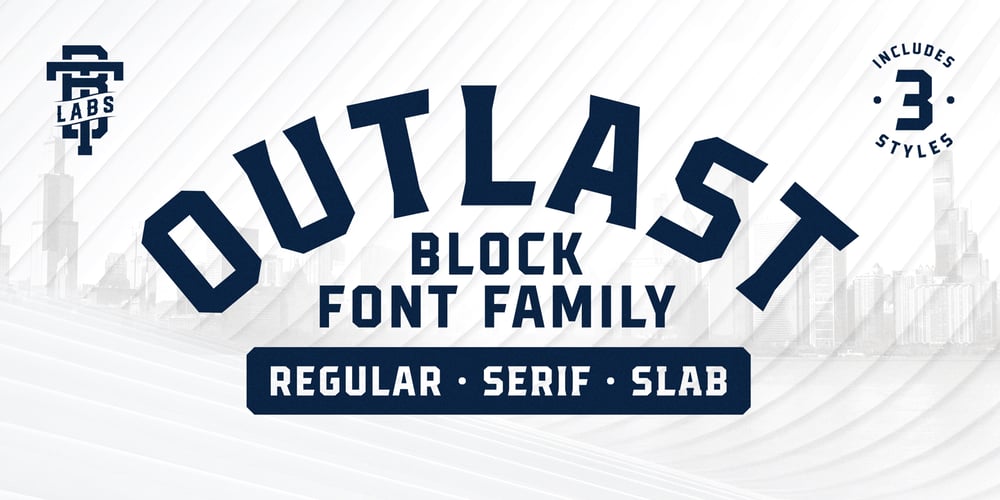
Outlast Font Family was designed by Tobias Alexandersson and published by BoxTube Labs. Outlast contains 3 styles and family package options. Introducing Outlast – A competitive sports font with three distinct and unique styles.Outlast was designed for creating powerful logotypes, sports branding, posters, apparel design, magazines headlines, labels and much more.